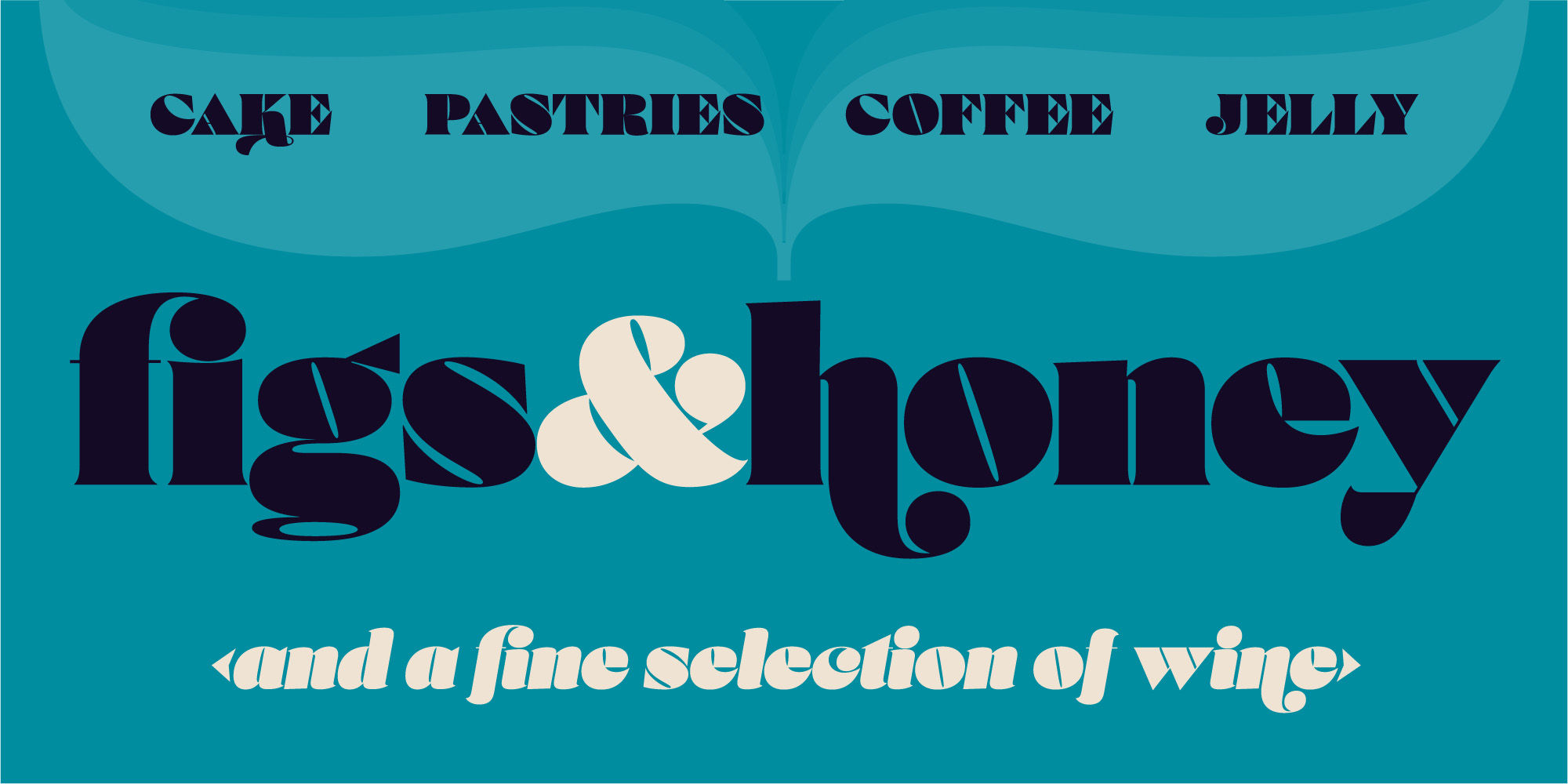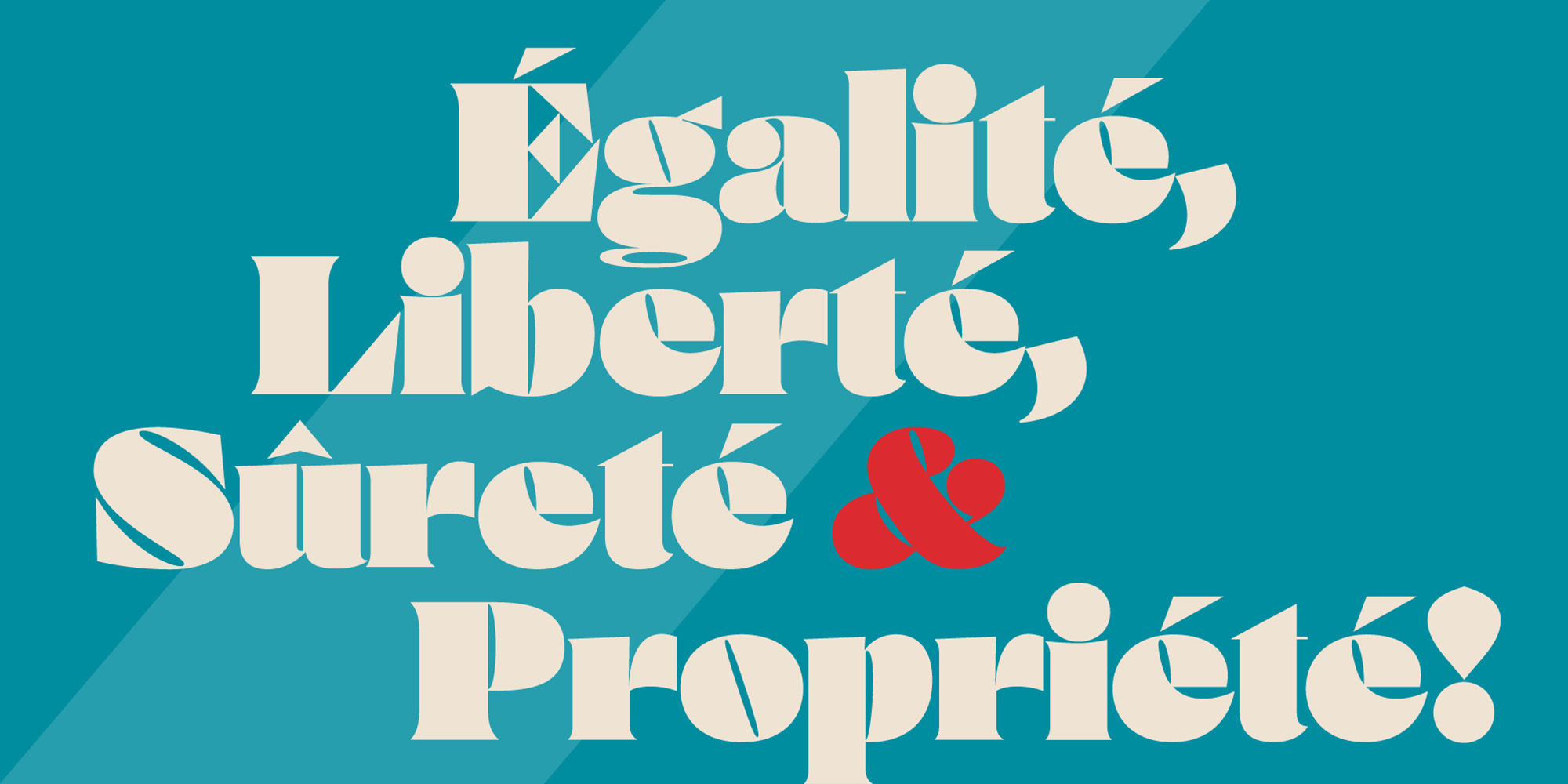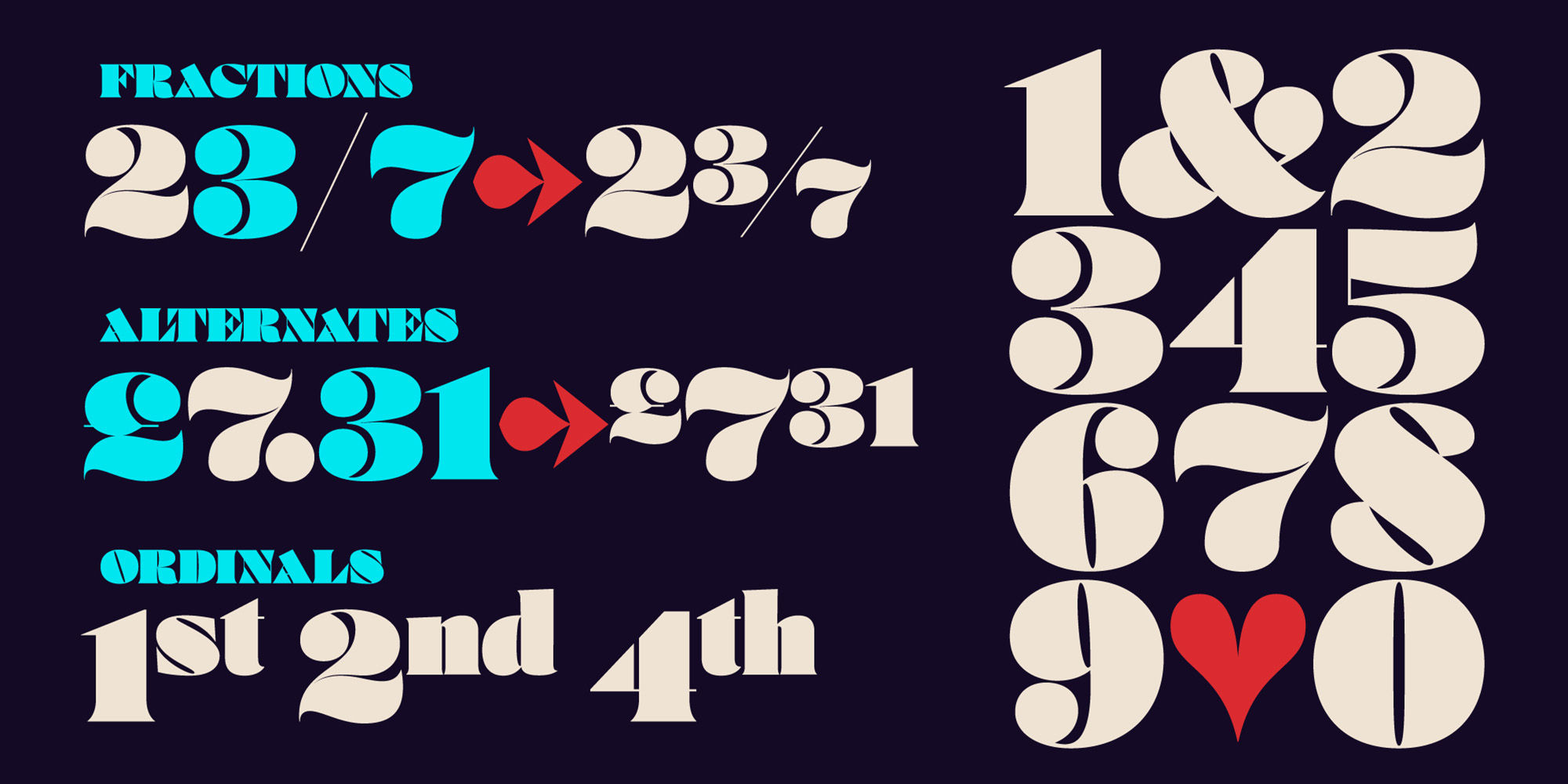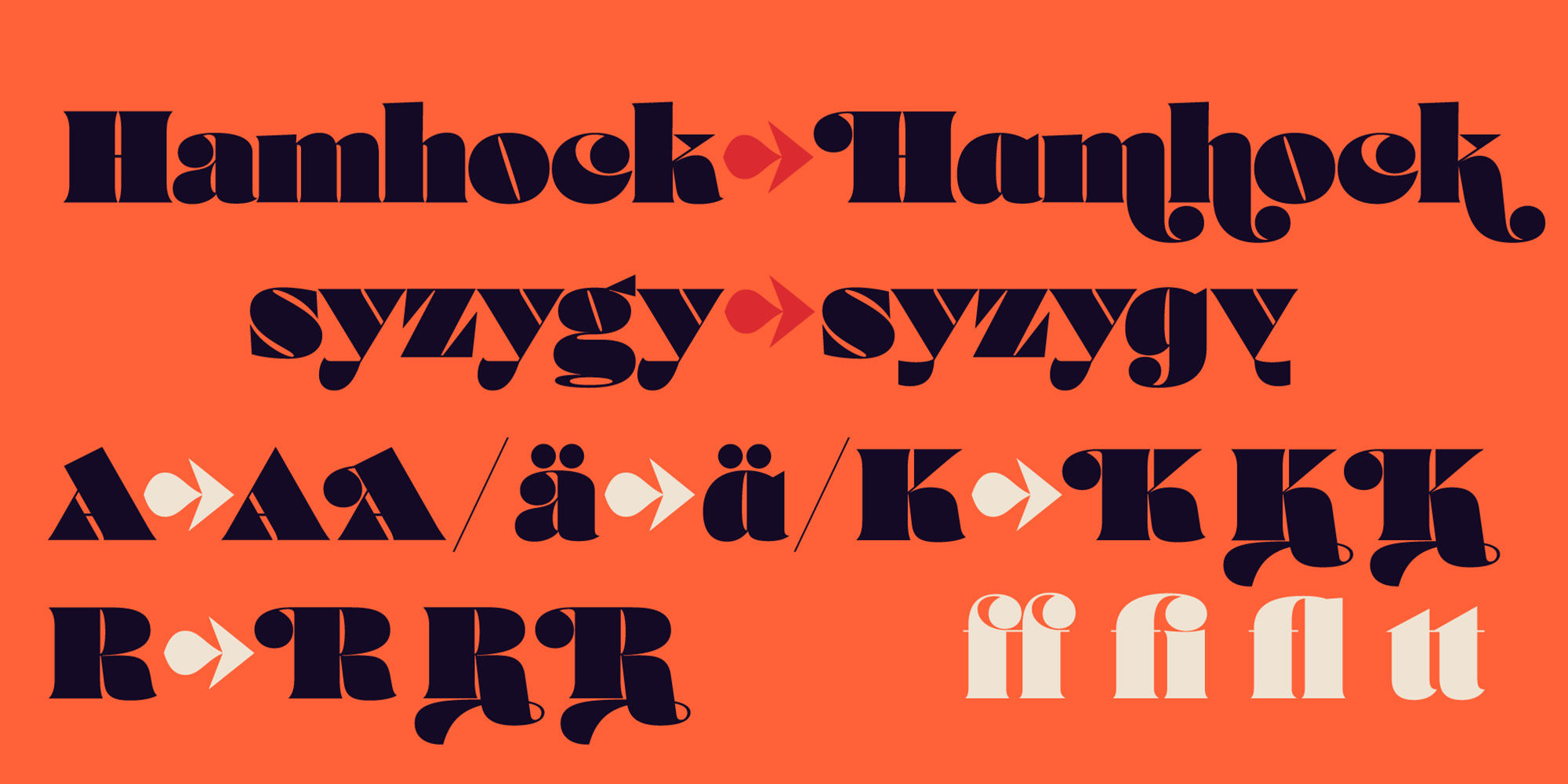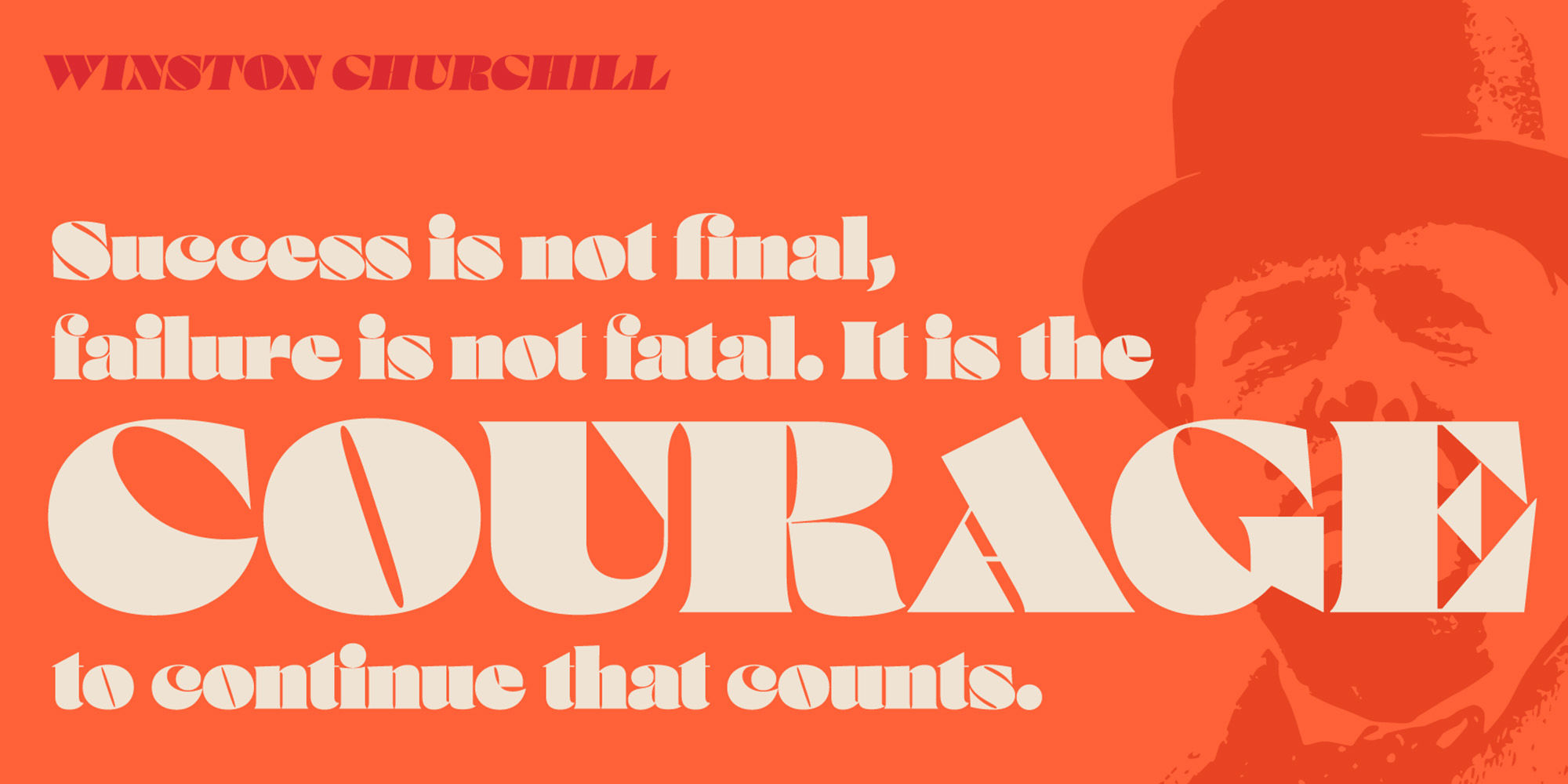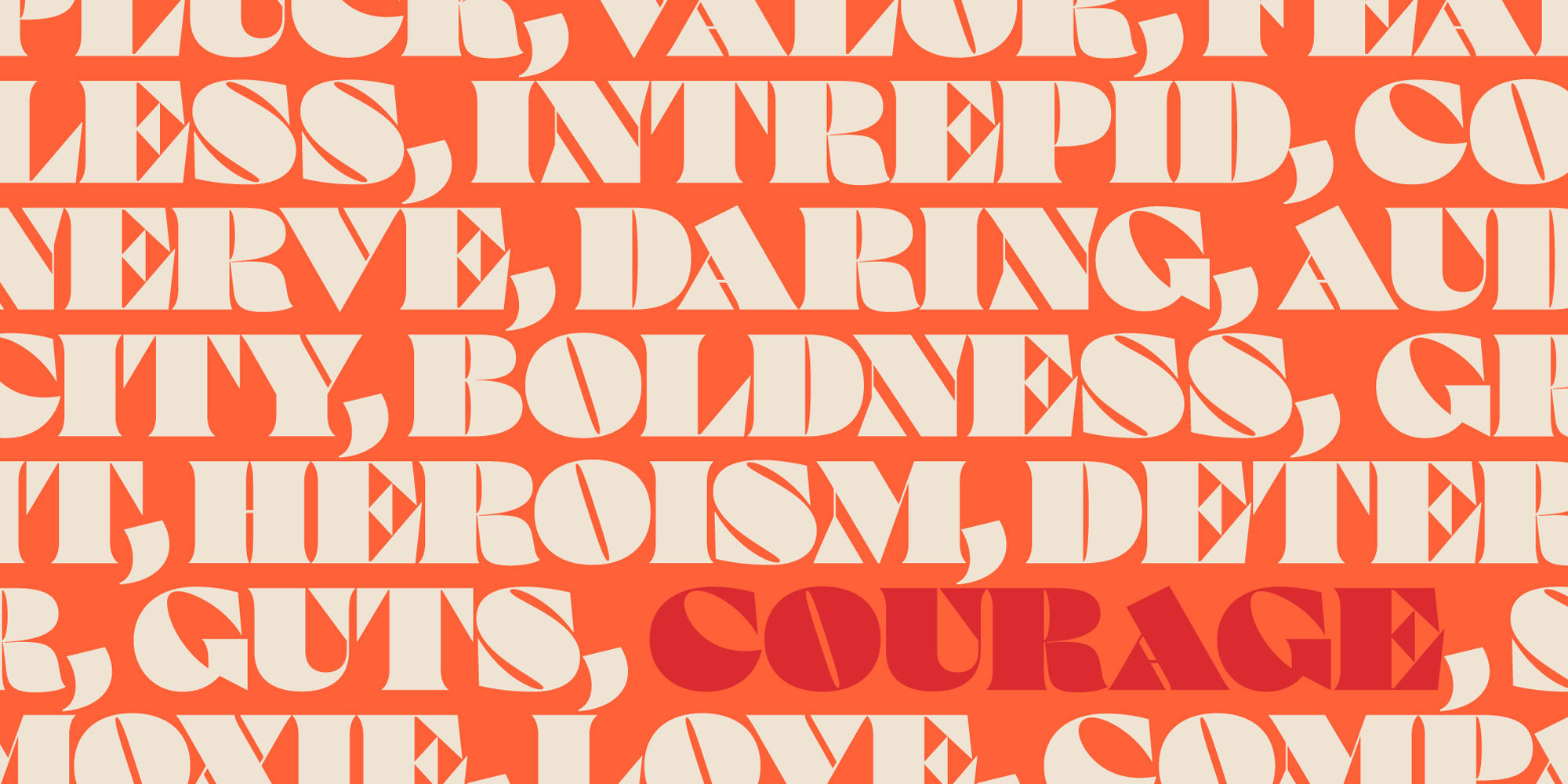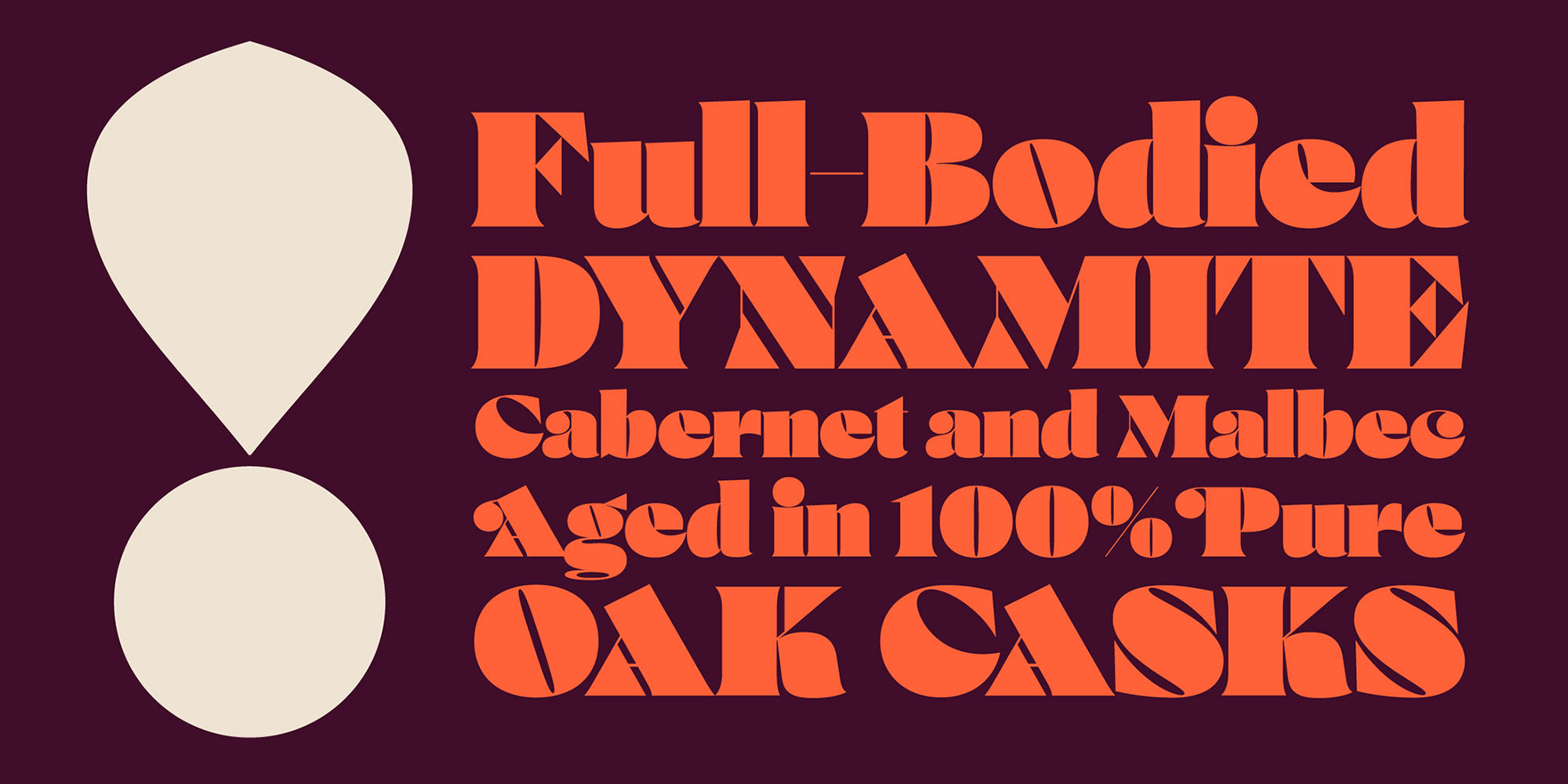
Courage
High-contrast? High impact? Have Courage? Eye-catching and (extra, extra) bold, Courage balances ultra-high stroke weight, delicate details, and unique letterforms with a self-indulgent passion that will make you feel a little guilty using it. Honestly, use it large and don’t try to force it into a small space, because these fearless letterforms need room to move. Flavored with both upright and italic styles, each font includes an indulgent level of alternates, swashes and titling options, visual elements and more.
A backstory with a different name
Years ago, I was commissioned to take my Lust typeface and produce something unique to use for large format graphics for an event…cool. It needed to be hyper-contrast with a lot of over-the-top details. With a tight turnaround, I looked for primers within my development catalogue to help me, and settled on some early work on a typeface I had drawn called Hedonist. I used those sketches and its conventions to retrofit and build out Lust Hedonist (only to see the project go bust on the client’s end). I intended to go back shortly after the Lust Hedonist release to finalize a retail version of the OG Hedonist, but I never could settle on the look of the 'g' or the numerals, got distracted with other projects, and never picked it back up… until last year. After randomly doodling a fat, flat ‘g’ with an extremely tilted counter axis, I knew immediately how it could be used and that (re)set things in motion. Only problem was, in the process of refining the letterforms I began truly dissecting the pieces, rediscovering all of the recklessness within Hedonist, and decided on fundamentally rewriting the approach to the typeface… literally flaying it to the bone. I’m much, much happier with this finished typeface now, but the name no longer fit the moniker given to the first, adolescent approach—there’s far more audacity and cleverness in these letterforms, tenacious in their resolution now. As a result, the name Courage fit the mettle of this typeface so much more, so I kept it.